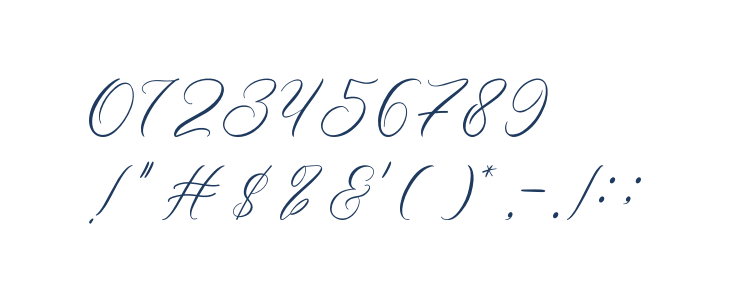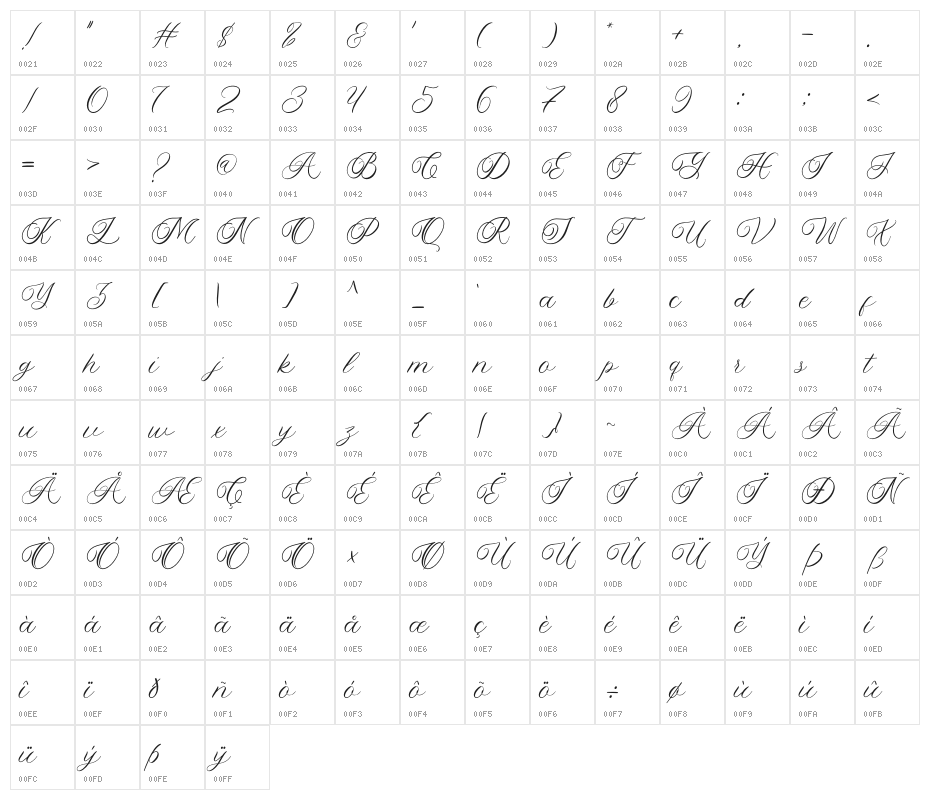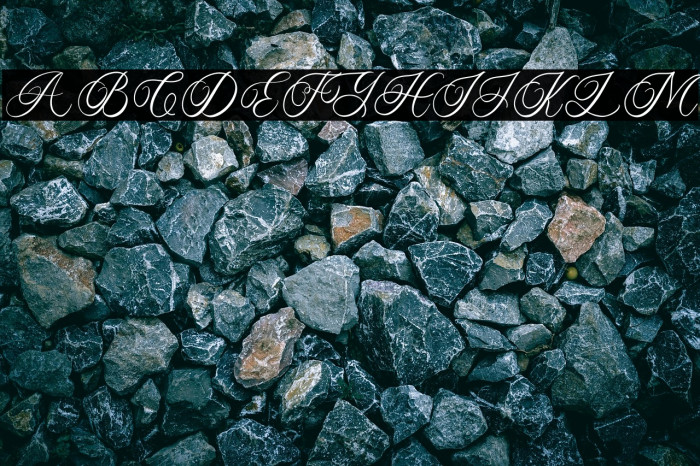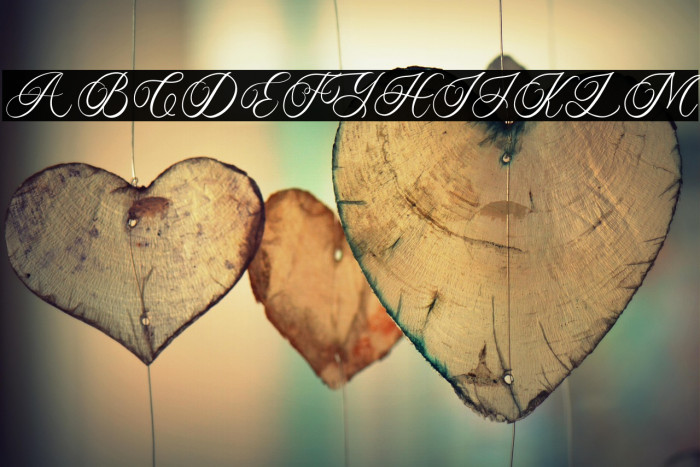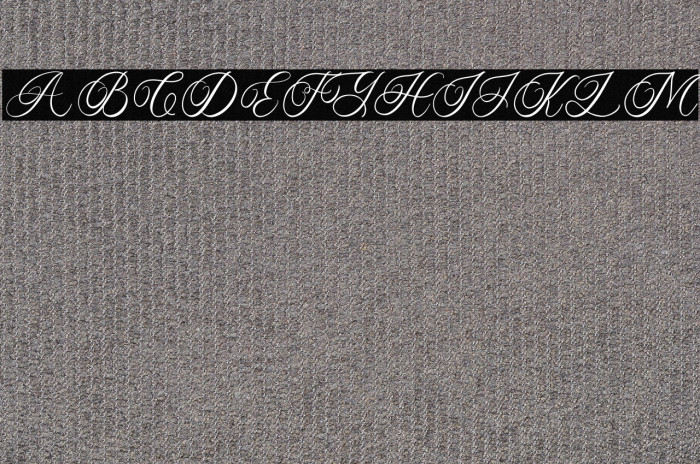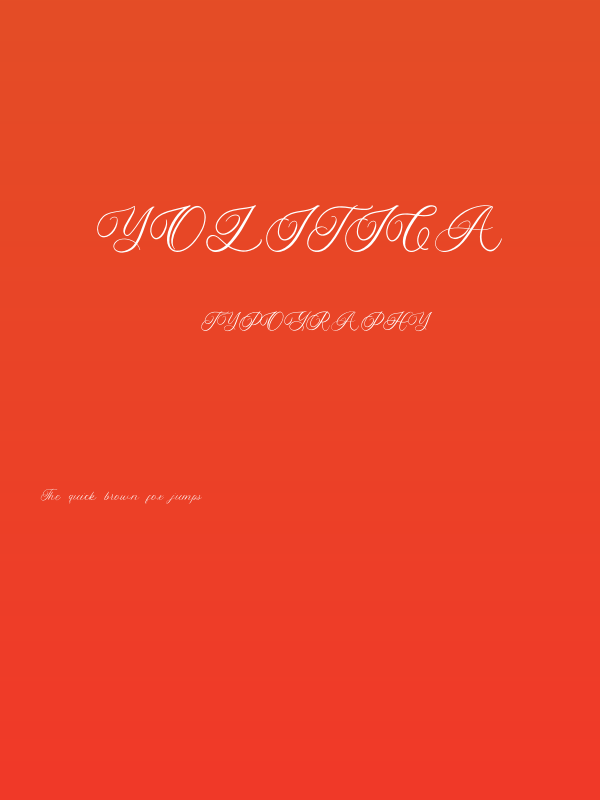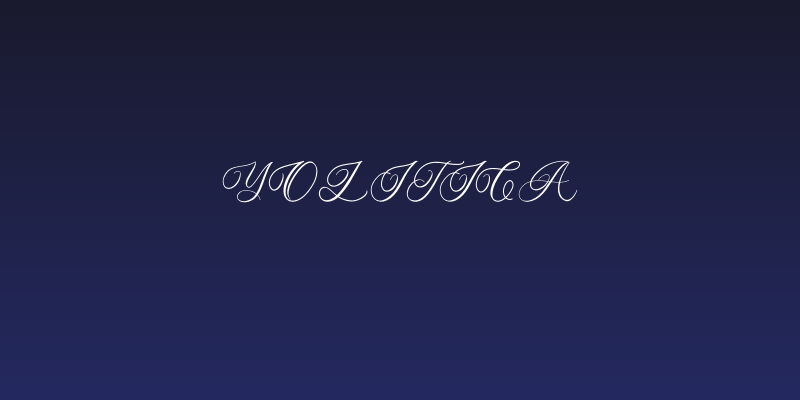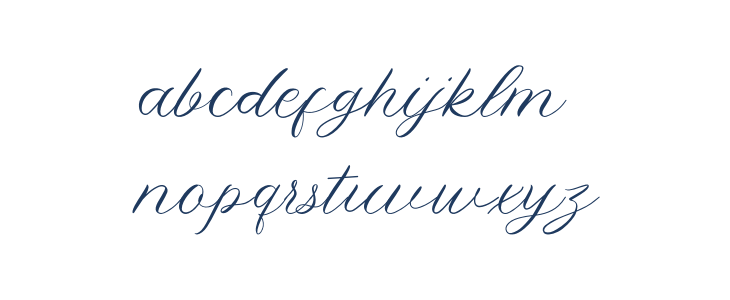
Yolitica Font
Yolitica Description
This elegant script font features flowing, cursive letterforms with intricate loops and flourishes. The uppercase letters are ornate, with sweeping ascenders and descenders that give a sense of movement and grace. The lowercase letters maintain a consistent slant, enhancing the handwritten feel. Numbers and special characters are designed with the same attention to detail, ensuring a cohesive look. The overall style is sophisticated and decorative, making it suitable for formal invitations, branding, and other projects that require a touch of elegance.
| Proposed Projects | Ideal for wedding invitations, luxury branding, greeting cards, and elegant logos. |